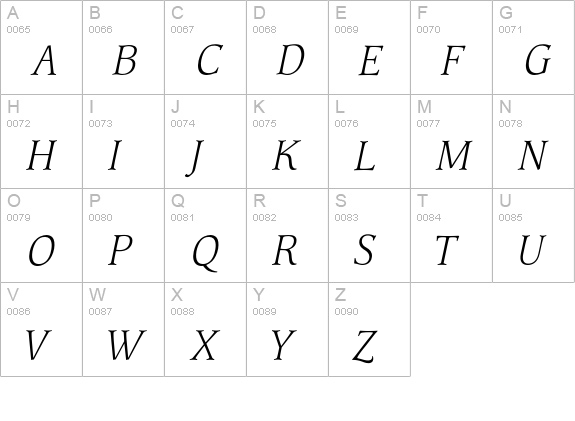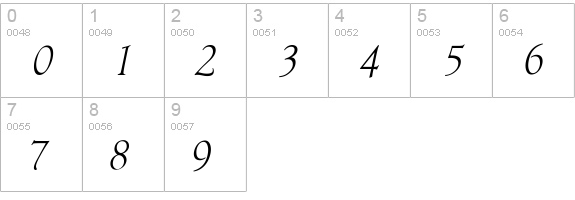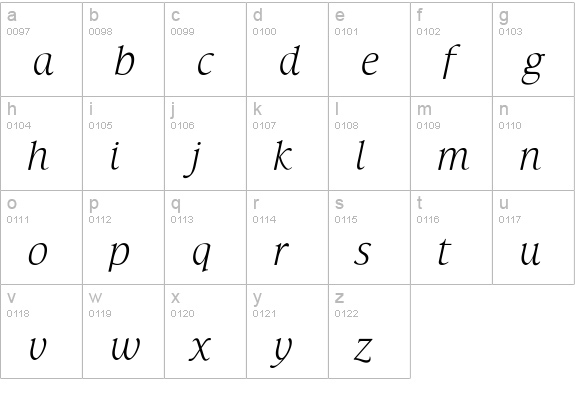
TFHabitat-Italic Font Details
TFHabitat-Italic is a distinctive, italic variant in the TFHabitat typeface family \xE2\x80\x94 well suited to design and typography projects.
Introducing TFHabitat-Italic, a stunning and versatile font that effortlessly combines elegance and modernity. This font is designed to bring a touch of sophistication to any project, whether it's a wedding invitation, a branding campaign, or a website design. TFHabitat-Italic is the perfect choice for those who appreciate the beauty of italic lettering. Its graceful curves and slanted angles add a sense of fluidity and movement to your text, creating a visually captivating experience for your audience. But what truly sets TFHabitat-Italic apart is its availability. We understand the importance of accessibility, and that's why we are proud to offer this font free of charge. Yes, you read that right - TFHabitat-Italic is freely available to download at FontsMarket.com. This means that you can enhance your creative projects without any financial burden. Whether you're a professional designer or a passionate hobbyist, TFHabitat-Italic opens up a world of possibilities, allowing you to experiment, express, and captivate without limitations. With its clean and crisp lines, TFHabitat-Italic brings a touch of sophistication to any design, while also maintaining readability and legibility. Its versatility makes it suitable for various purposes, from headlines and titles to body text and quotes. So go ahead, unleash your creativity and make a statement with TFHabitat-Italic. Download it now for free at FontsMarket.com and discover the power of elegant italic typography.